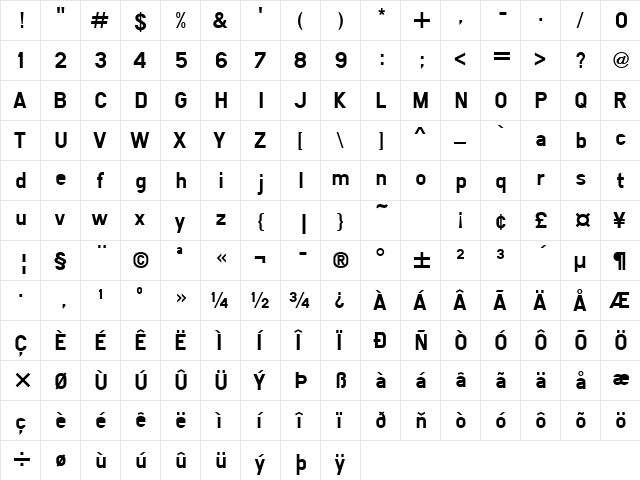
Snv Becker Regular
Design Context for Snv Becker Typeface
Snv Becker is a composed and adaptable typeface that performs quietly and consistently across a wide range of design contexts.